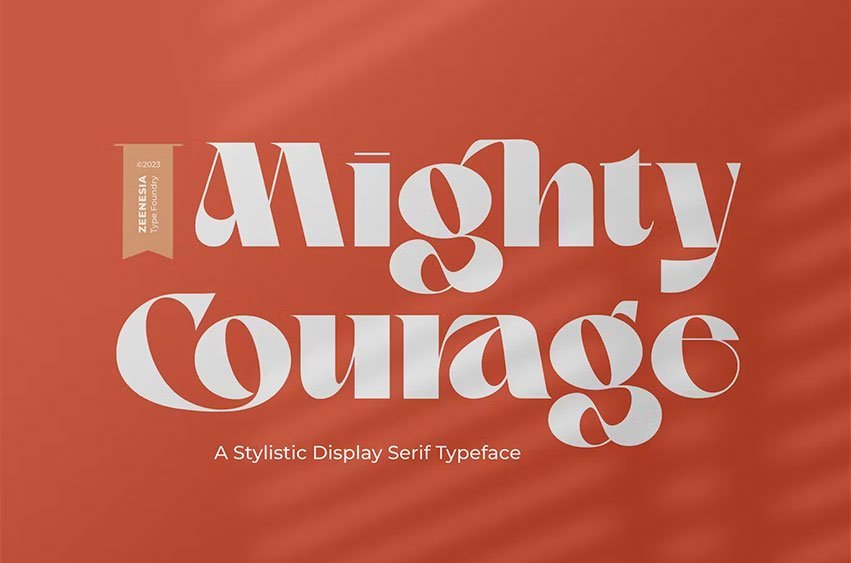
Mighty Courage Font is a modern and elegant serif font. Mighty Courage is It’s modern and classy font with a unique and deference look . Perfect if you need a dose of fun in your project.